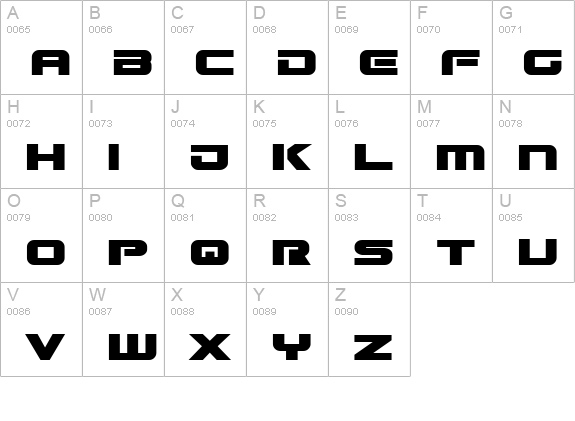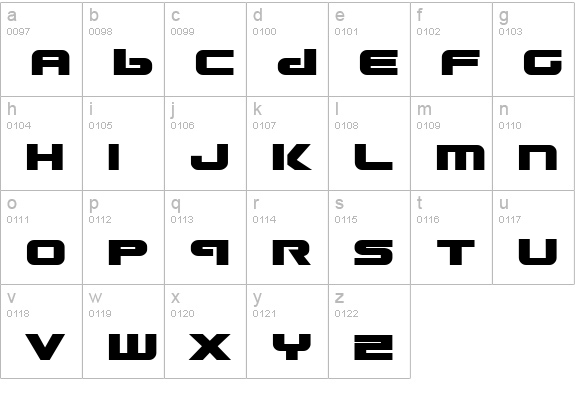
Gunship Bold is a strong, high-contrast variant in the Gunship typeface family \xE2\x80\x94 well suited to headlines, attention-grabbing titles, and strong calls-to-action.
Gunship Bold is a striking and powerful display font that commands attention with its bold and impactful design. With its military-inspired style and strong, angular lines, this font is perfect for creating eye-catching headlines, logos, and posters. The best part? Gunship Bold is available for free download at FontsMarket.com, making it accessible to anyone looking to add a touch of boldness to their design projects. Whether you're designing a flyer for a high-energy event or creating a logo for a cutting-edge brand, Gunship Bold is sure to make a statement and leave a lasting impression. Download it now and unleash the power of this dynamic font in your designs.